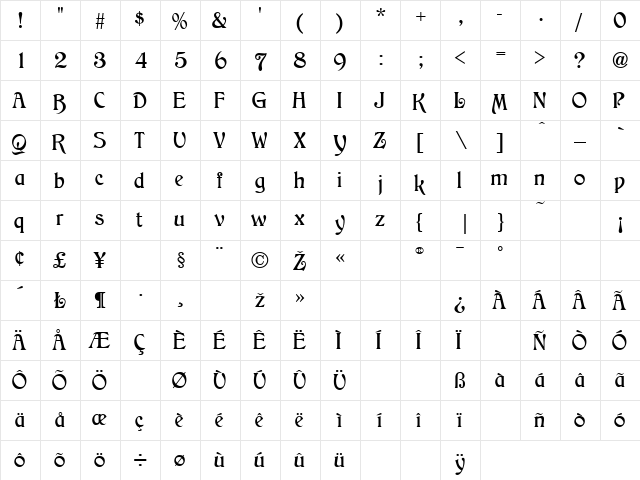
Childs Normal Font Preview
Childs Normal
Design Context for Childs Typeface
Childs trades formality for fun, with bouncy, characterful letterforms that bring warmth and energy to any project.
Well-suited to food and beverage brands with personality, educational materials, and fun-forward identities.
Font Pairing: Pairs well with a rounded or humanist sans for body copy, maintaining the friendly tone without relying on Childs to carry extended reading.
Pro Tip: Use Childs at larger display sizes where its expressive character can land. Pair with a clean, simple sans for body copy to maintain readability.